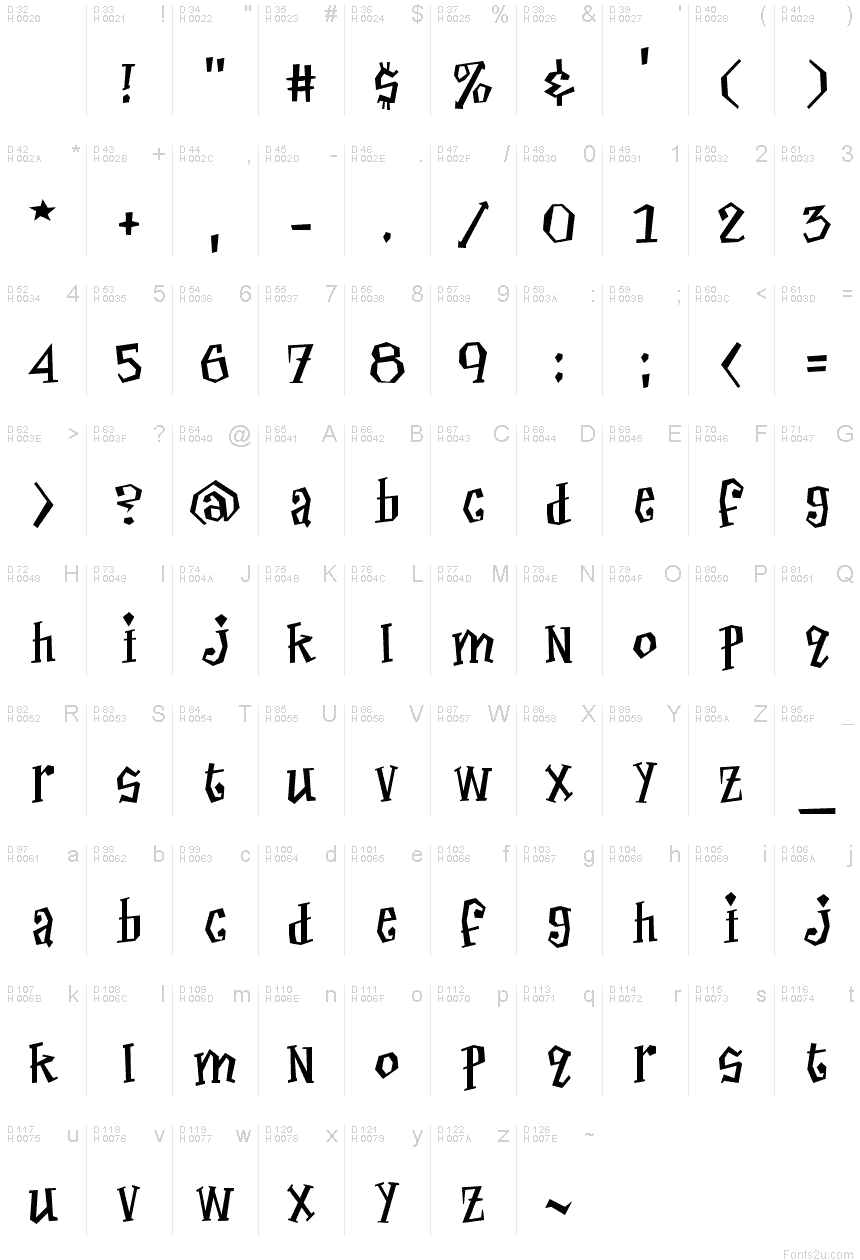
Thayer Street NDP by Nate Piekos of provtype.com is a free blackletter font with blade-like strokes and a crooked silhouette. Letters shift between narrow shafts and broad, sharply cut forms. The uneven angles feel roughly hand-hewn.
A fantasy game studio or themed attraction could use it for branding steeped in old-world drama. It also suits metal merchandise and folklore publishing, echoing roughly carved signs. Beside shields, maps, or stonework, the crooked outlines become part of the imagined world.